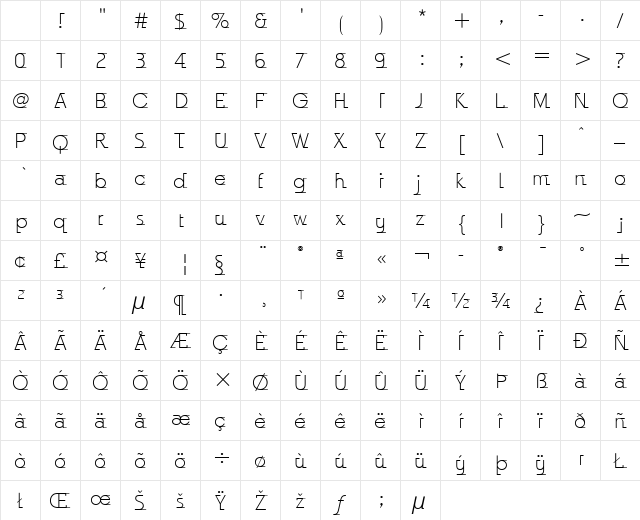
Complete Odyssee ITC Light glyph index. Displaying only characters natively supported by Odyssee ITC Light font.
Odyssee ITC is a composed and adaptable typeface that performs quietly and consistently across a wide range of design contexts. Its slender proportions lend an understated elegance to any composition.